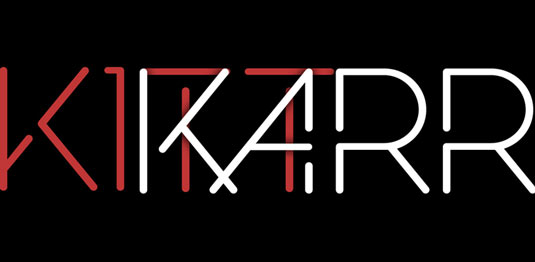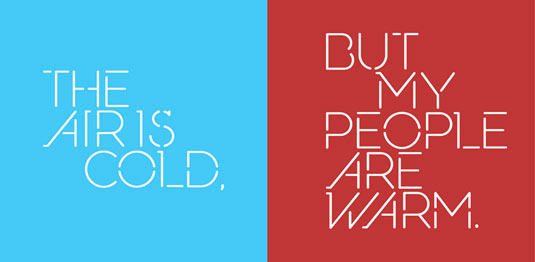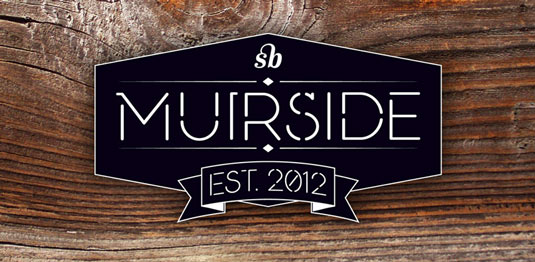
Font of the day: Muirside
Every day we showcase the best fonts on the web. Today it's Muirside by Steven Bonner.
Muirside by Steven Bonner
Designed exclusively for font shop HypeForType, Muirside was created by designer and illustrator Steven Bonner. The typeface is described on the HypeForType site as "a contemporary and clean stencil font, based on type originally drawn for a poster design inspired by bicycle frame shapes".